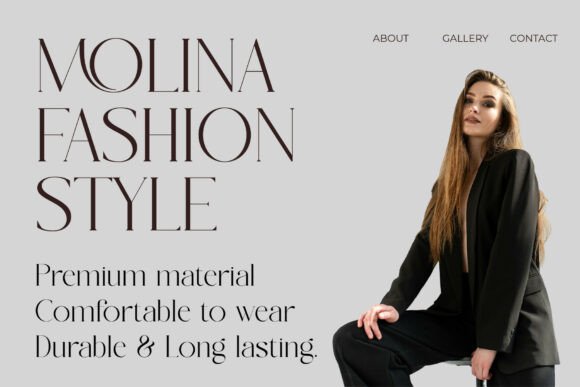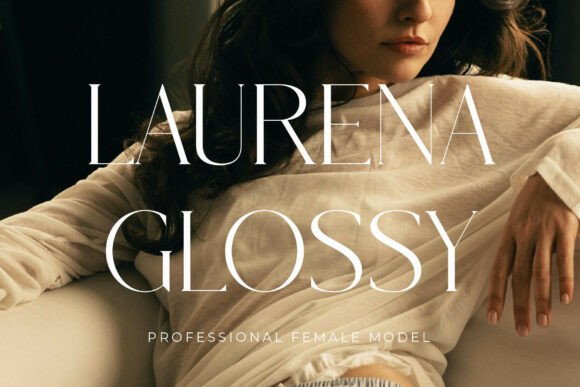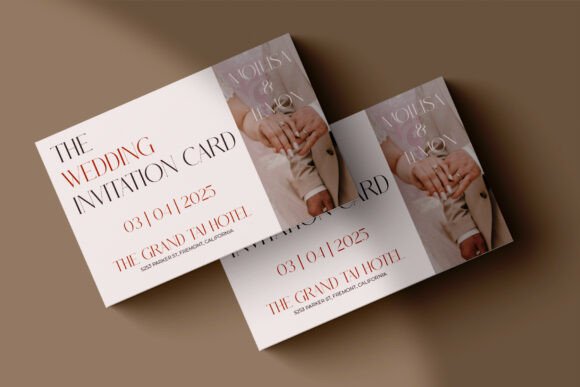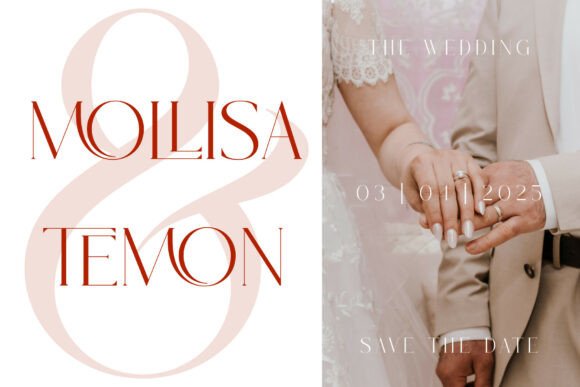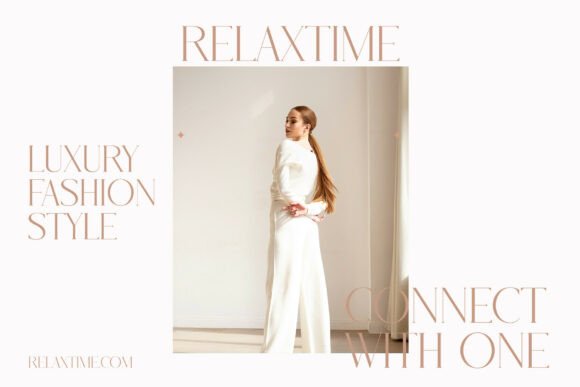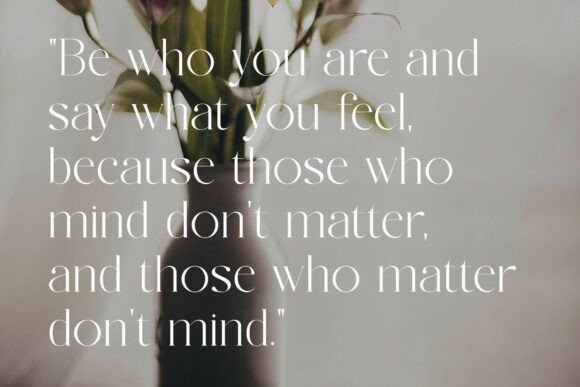
Introduction to Moresa Callote Font Font
Fonts play a crucial role in design, and the Moresa Callote Font font is a typeface that brings both character and versatility to any project. Whether you’re working on a branding project, a website, or a print design, the Moresa Callote Font font offers a unique style that can elevate your work.
Pound a confident, ultra-chic structure straight into your design grid with Moresa Callote, a breathtaking beauty elegant serif font.
It serves as an extraordinary branding centerpiece for high-end fashion lines, fine art photography portfolios, boutique winery labels, luxury watch lookbooks, and prominent lifestyle magazine headlines Make your statement with a conceptual masterpiece of pure elite class.
Key Features of Moresa Callote Font Font
Why Choose Moresa Callote Font Font?
The Moresa Callote Font font is more than just a typeface – it’s a design tool that helps you communicate your message with style and clarity. Its unique character set and versatile design make it suitable for a wide range of applications, from elegant invitations to bold headlines.
With its carefully crafted letterforms and balanced proportions, the Moresa Callote Font font ensures readability and visual appeal across all mediums.
What makes Moresa Callote Font font special?
The Moresa Callote Font font stands out with its unique design, exceptional readability, and versatility across various design applications.